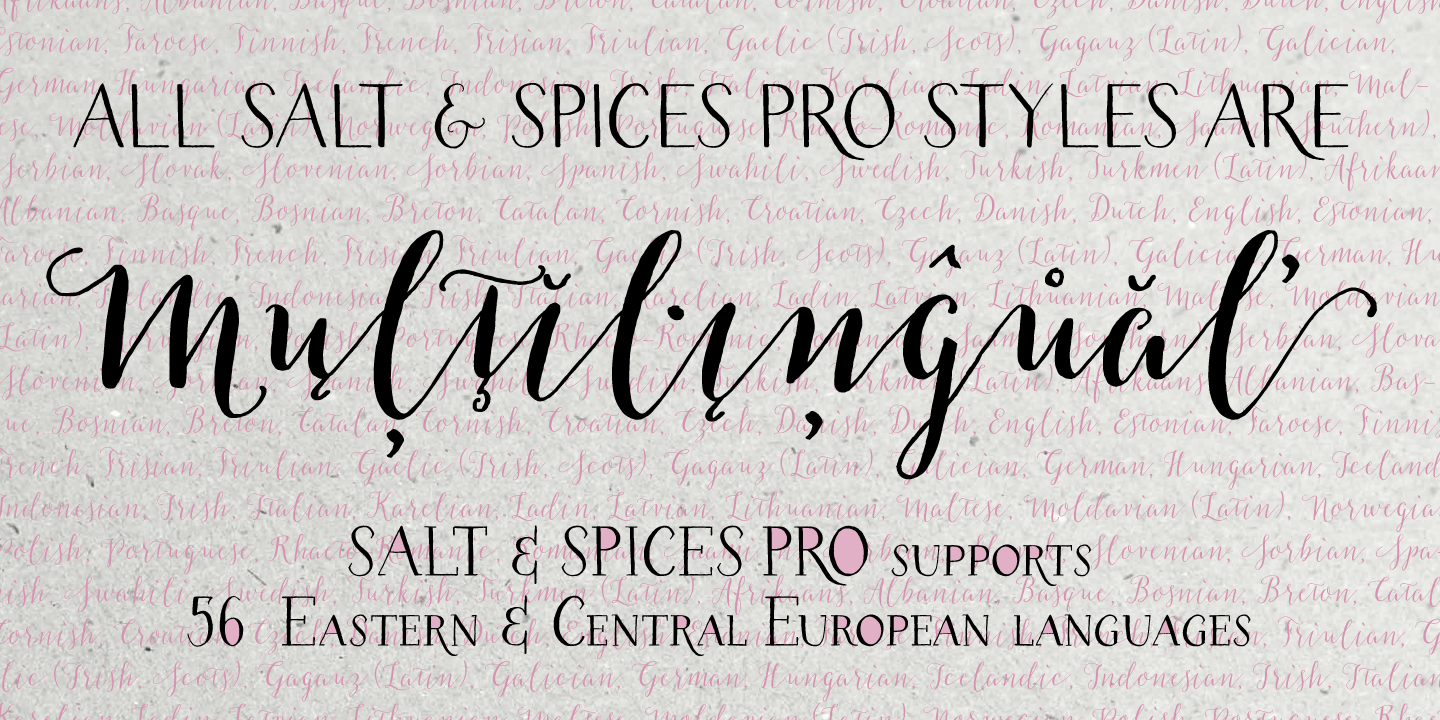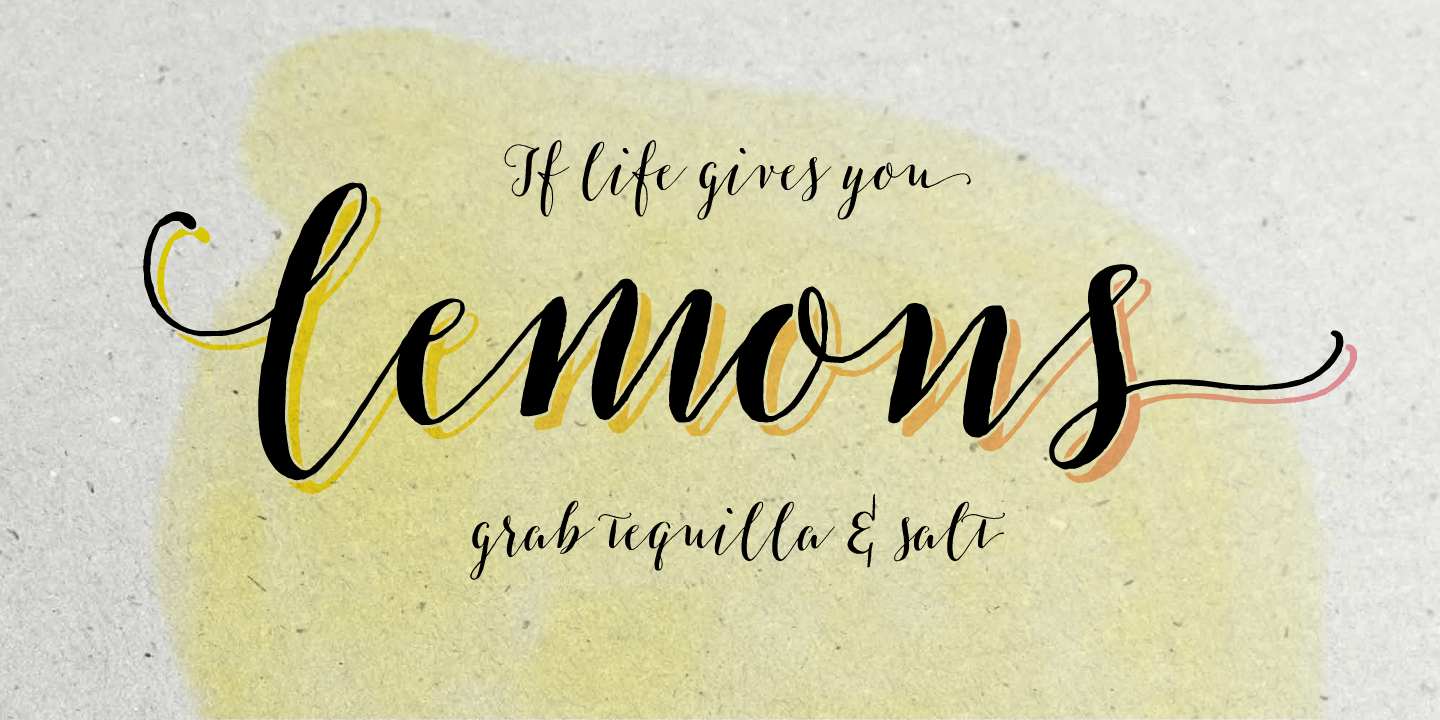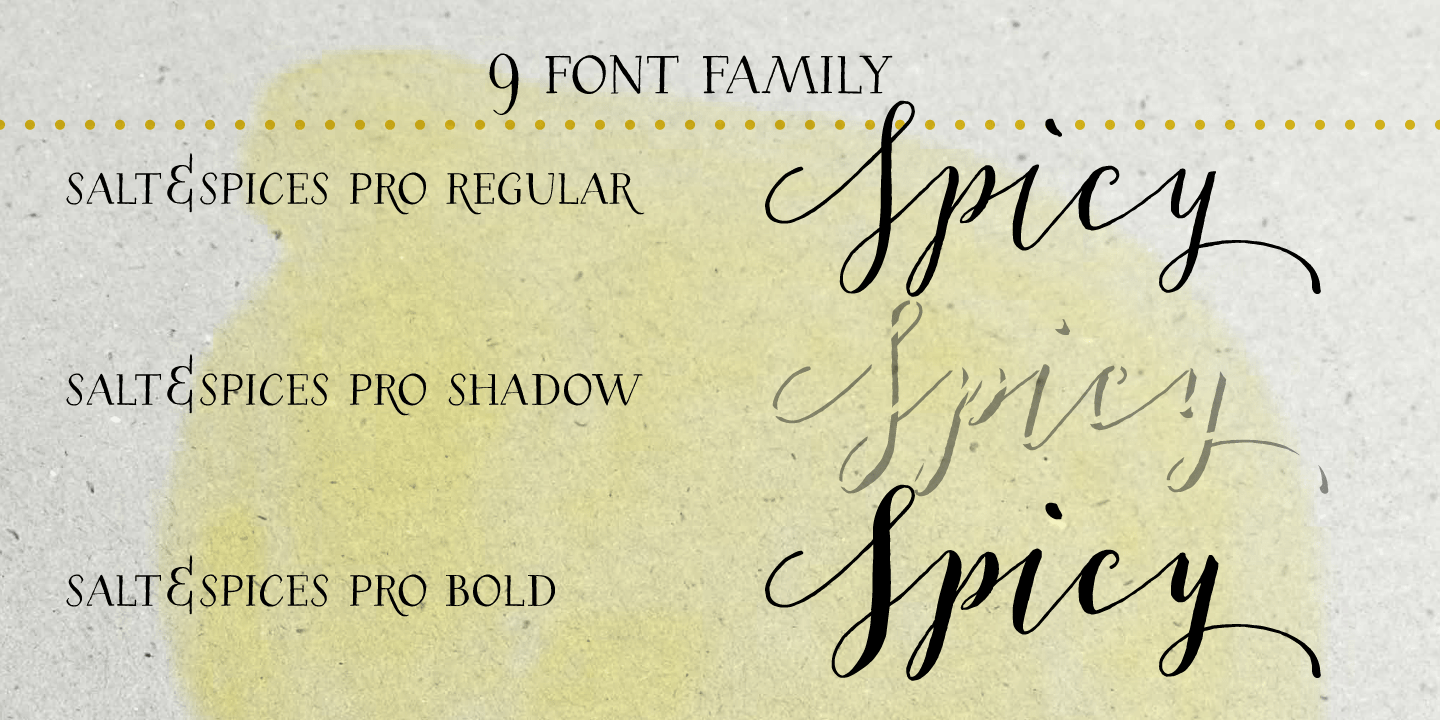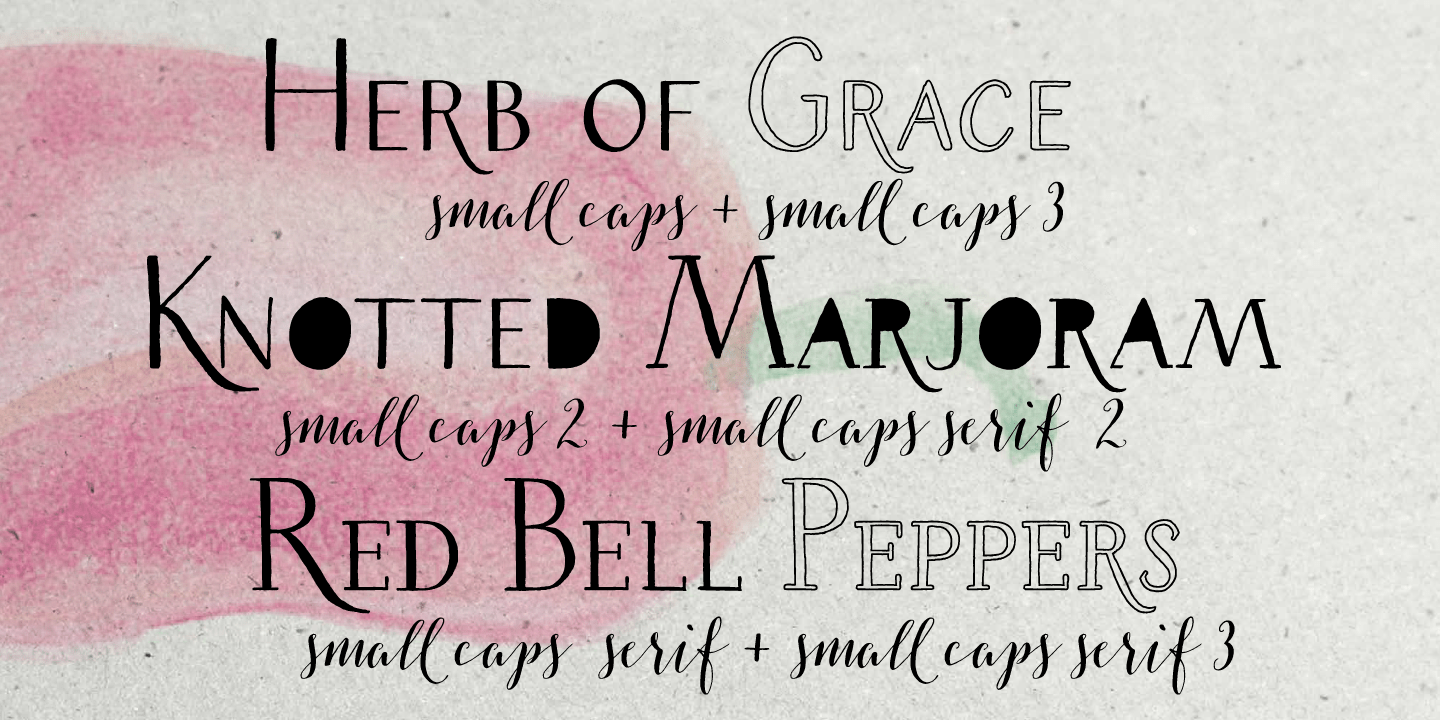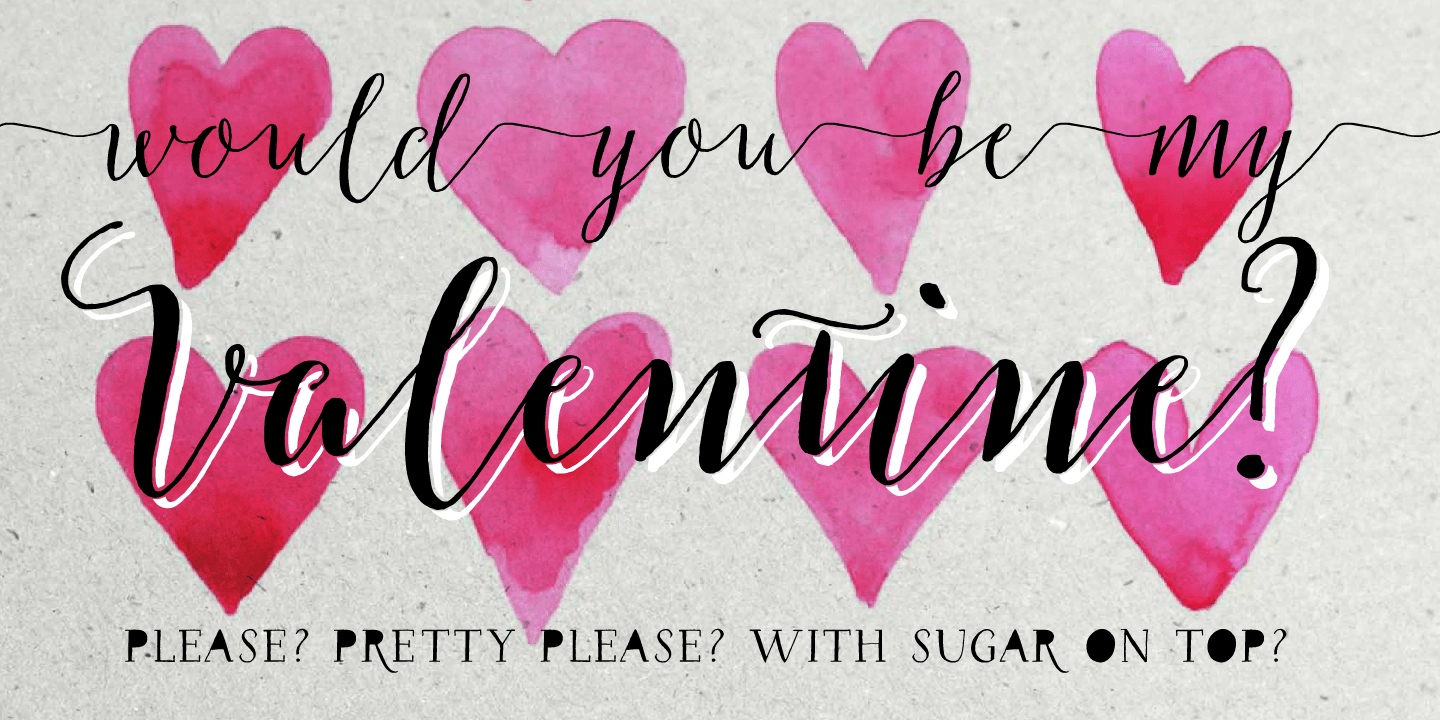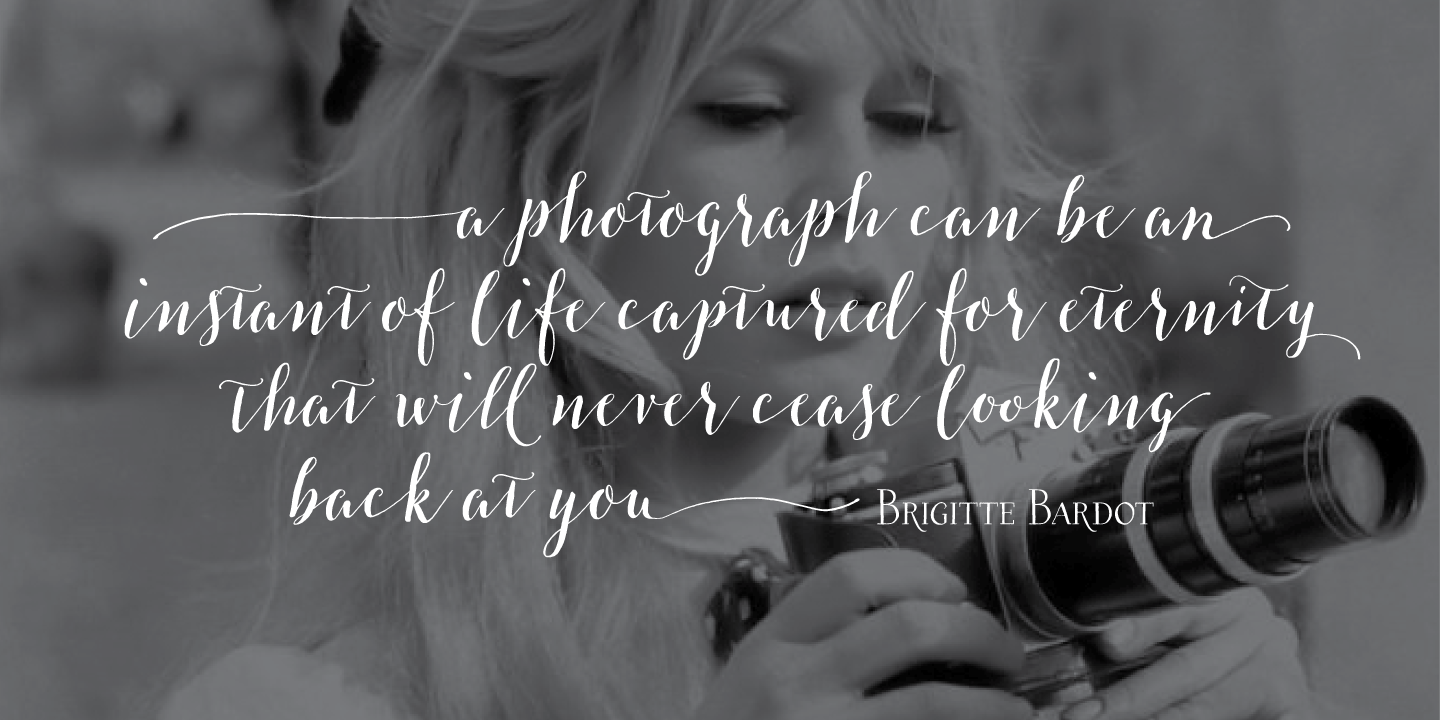
About Salt & Spices Pro
Salt & Spices Pro is a very versatile 9 font family, consisting of 3 casual styles: Regular, Bold and Shadow. With 587 glyphs each, they offer great flexibility in customizing words and phrases to suit your personal taste. For instance: the appearance…